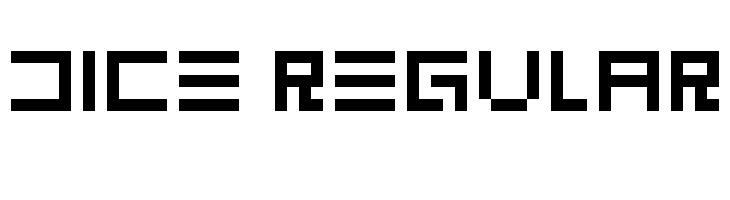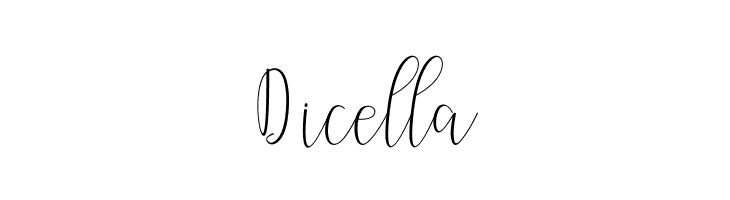
A modern, geometric font with a clean and balanced design.
A bold, brush-style font with dynamic, hand-drawn strokes.
A lively decorative font made of cartoon characters in unique poses.
A flowing, cursive font with elegant, elongated strokes and interconnected letters.
A bold, artistic script font with a handcrafted, brush-like style.
A playful, hand-drawn font with a textured, scribbled appearance.
A bold, playful font with exaggerated serifs and whimsical curves.
A dingbat font with line-art icons of art supplies and tech items.
A bold, geometric font with a modern and cohesive design.